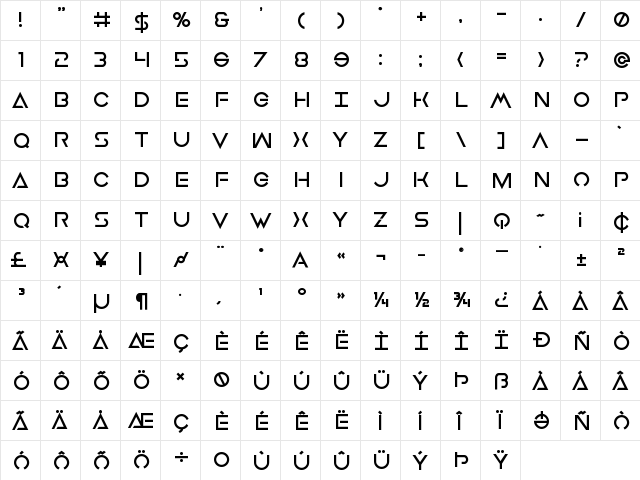
Earth Orbiter Bold Bold Font Preview
Earth Orbiter Bold Bold
Earth Orbiter Bold Bold Font Details
Design Context for Earth Orbiter Bold Typeface
Earth Orbiter Bold takes a measured approach to typography — its balanced proportions and neutral character make it a reliable workhorse for both digital and print work. The heavy weight commands attention and anchors typographic hierarchies.